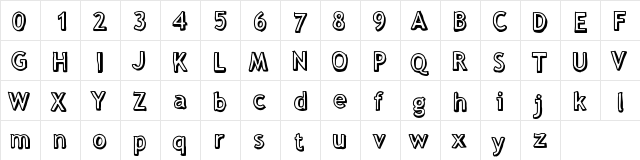
ThreeDee Medium
Design Context for ThreeDee Typeface
ThreeDee is a composed and adaptable typeface that performs quietly and consistently across a wide range of design contexts.